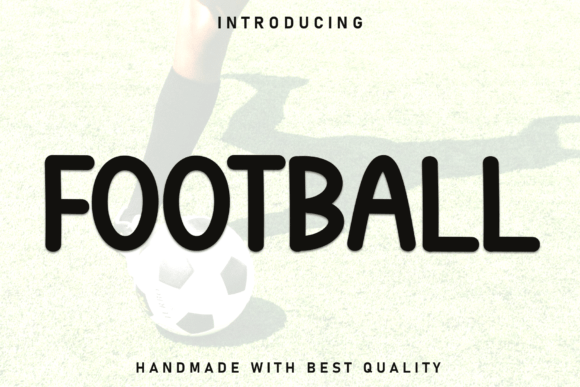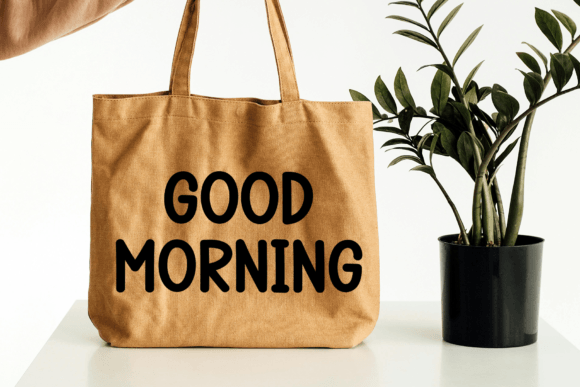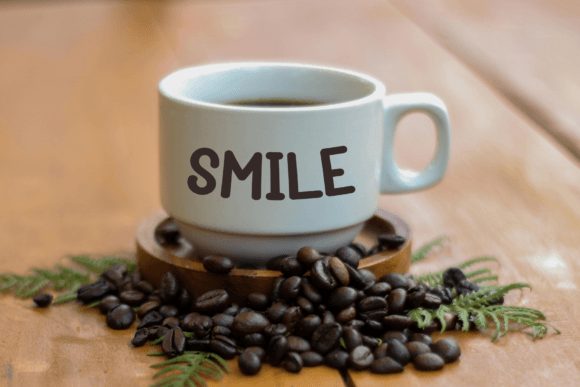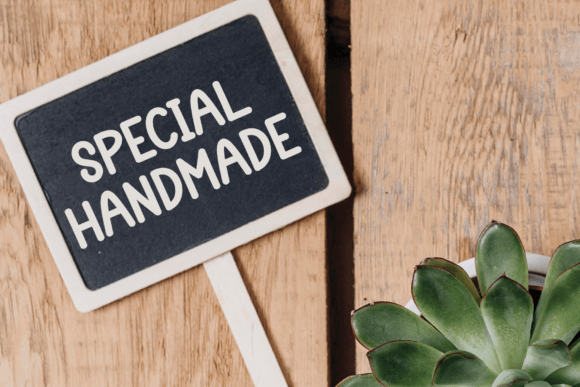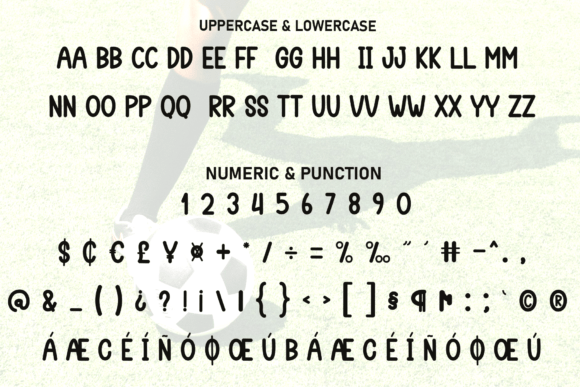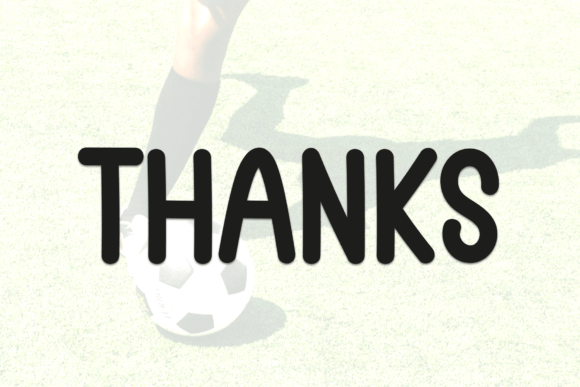
The Perfect Touchdown for Your Design
Have you ever been brainstorming ideas for a project, and suddenly, a burst of creativity strikes? You’re scribbling down notes, and your pen or pencil is moving rapidly across the paper, capturing the essence of your idea. That’s exactly the kind of energy and excitement that Football Font embodies.
Football Font is a charming, handwritten font that screams ‘let’s get this party started!’ Its bold, playful strokes are reminiscent of a marker sketch, giving it a sporty, casual vibe that’s perfect for making your text stand out. Whether you’re designing a sports-themed website, a fun social media campaign, or a quirky advertisement, Football Font is the perfect addition to give it that extra oomph.
For designers, Football Font is a valuable asset – it adds a touch of personality to any project and helps to convey a sense of fun and approachability. With its energetic feel, it’s sure to leave a lasting impression on your audience.
Football Font Key Features
- Font Family: Football Font is a sans-serif font designed specifically for sports and action-related themes.
- Character Set: Includes a wide range of characters, including uppercase and lowercase letters, numbers, punctuation, and special characters.
- Unique Characteristics: Distinctive rounded edges and bold lines give the font a dynamic, energetic feel, making it perfect for sports-related projects, action-packed headlines, and more.
Football Font Review
I recently had the chance to work with the “Football Font” and I have to say, it’s a mixed bag. Here’s my honest take on what works well and what doesn’t.
- Unique Design: The Football Font has a distinct, bold design that’s perfect for sports-related projects. It’s eye-catching and grabs attention.
- Customizability: The font is highly customizable, allowing you to adjust the size, color, and style to fit your needs.
- Playful Feel: The font has a fun, energetic feel to it, making it perfect for projects that need a bit of personality.
- Limited Legibility: At smaller font sizes, the Football Font can become difficult to read, especially for longer blocks of text.
- Lack of Variations: While the font is customizable, there are limited variations to choose from, which may not suit all design needs.
Overall, I’d say the Football Font is a solid choice for sports-related projects or designs that need a bold, playful feel. However, it may not be the best choice for projects that require clear, legible text at smaller font sizes. With a bit more development, I think this font has the potential to be a real game-changer.
Canva’s Football Font is ideal for creating sports-themed graphics, posters, and social media posts.
The Football Font is a great choice for creating custom sports logos, jerseys, and branding materials.
The Football Font is perfect for creating sports-themed presentations, reports, and documents.
The Football Font is ideal for:
- Sports-themed graphics and posters.
- Custom sports logos and branding materials.
- Sports presentations and reports.
- Social media posts and advertisements.
Q: Does Football Font include any special characters or ligatures?
Yes, Football Font includes a range of special characters and ligatures designed specifically for sports-related applications, such as football stadiums, scoreboards, and player names. These characters are carefully crafted to enhance the overall visual identity and legibility of the font.